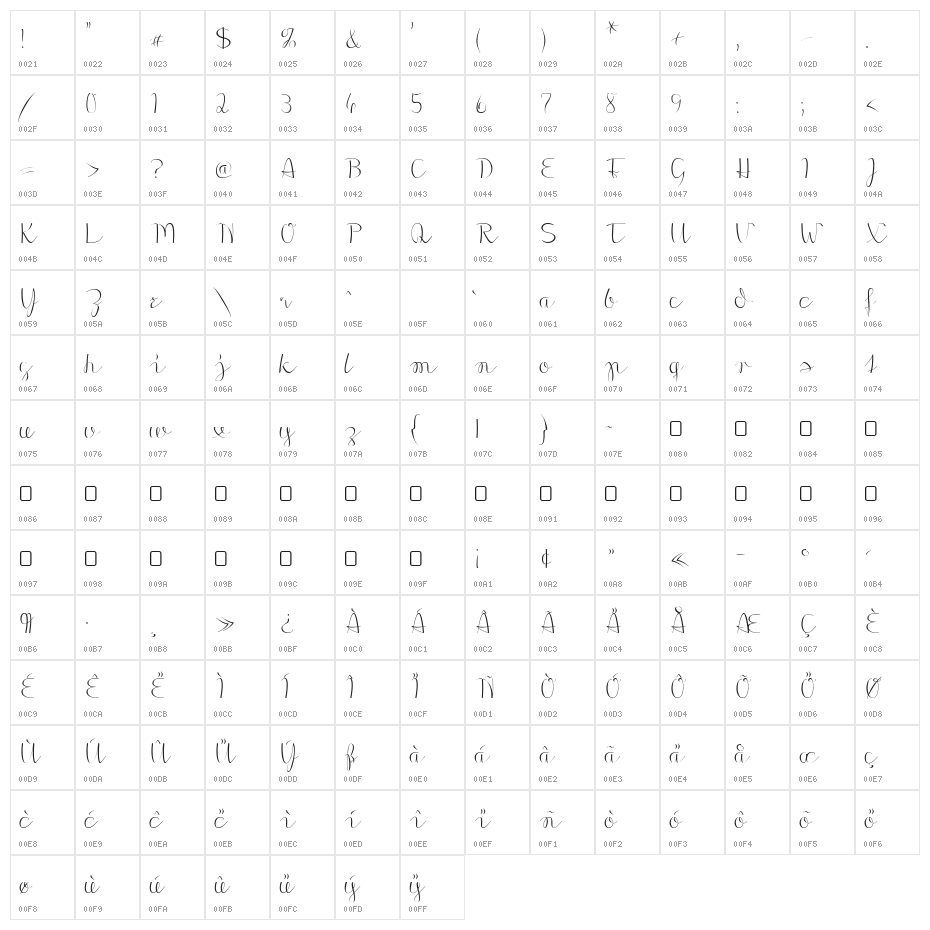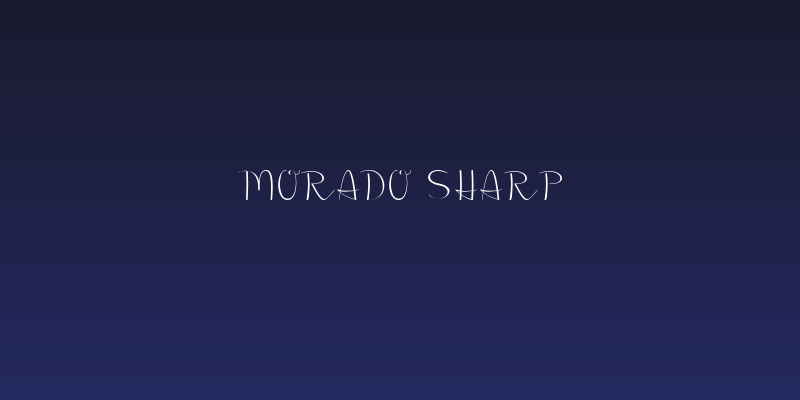
Morado Sharp Font
Morado Sharp Description
This font features a unique blend of elegance and flair, characterized by its flowing, cursive style with sharp, angular elements. The uppercase letters exhibit a sophisticated balance between curves and pointed edges, creating a dynamic visual rhythm. The lowercase letters maintain a consistent fluidity, enhancing readability while retaining artistic expression. Numbers and special characters are crafted with the same attention to detail, ensuring a cohesive appearance across all glyphs. The overall design is both modern and timeless, making it suitable for a variety of creative applications.
| Use Case | Logos, Invitations, Editorial |
| Proposed Projects | Ideal for wedding invitations, branding, logo design, and editorial use. |